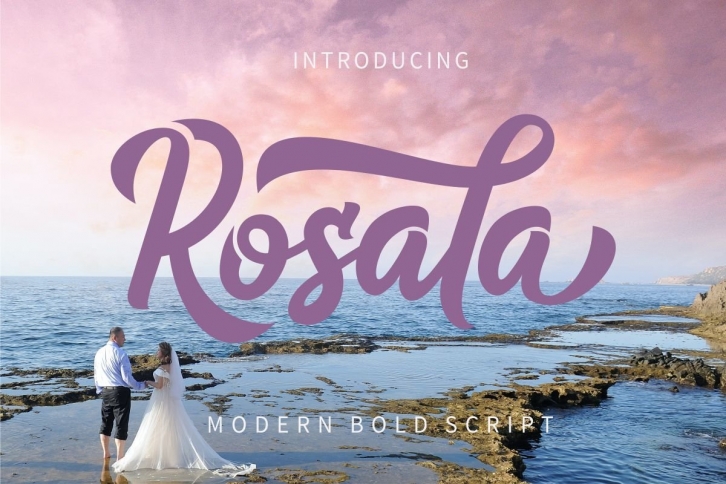
Rosala is a great font that was designed by GFR creative. Imagine the amount of combinations you can create using this font! The archive is 14.99 MB and it was released on September 1, 2020. Rosala looks beautiful on wedding invitations, greeting cards, logos, posters, labels, t-shirt designs, logos, business cards and is perfect for use in ink or watercolor works, fashion, magazines, packaging and food menus, children's books and more!